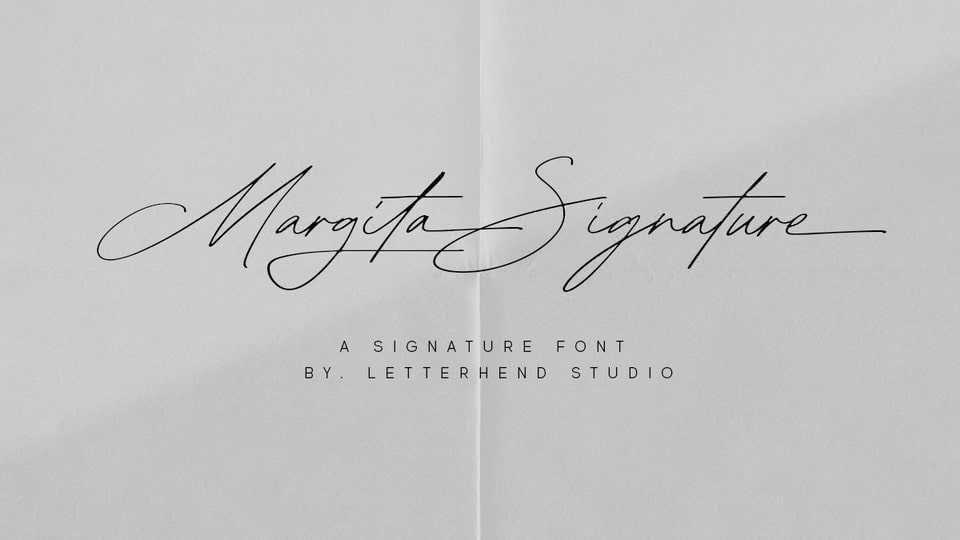
Download Margita Signature font, a beautiful signature script typeface based on manual handwriting. The stylistic alternate, ligatures and the tick and thin stroke make this font looks a real hand writing.